1. Introduction
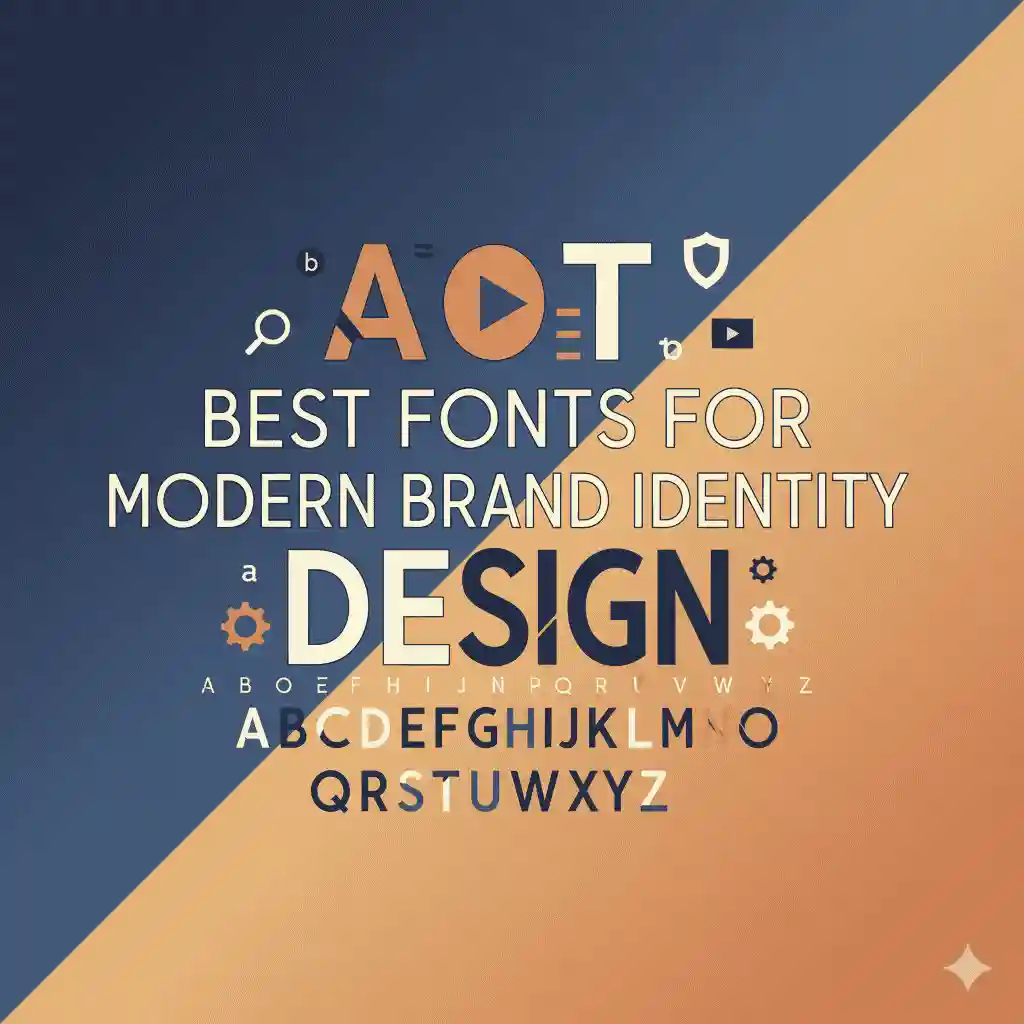
In today’s competitive digital world, brand identity is everything. A strong brand is not only about logos and colors but also about typography. The right font can make your brand look professional, modern, and trustworthy. In this article, we’ll explore the best fonts for modern brand identity design, how to choose them effectively, and some professional font recommendations you can use to strengthen your branding.
2. Why Fonts Matter in Brand Identity
Fonts are a crucial element of branding because they influence how people perceive your business. According to studies, typography can affect consumer trust and even purchasing decisions. A modern and consistent font choice helps your brand communicate professionalism and credibility.
For example, luxury brands often use elegant serif fonts, while tech companies lean towards minimal sans serif fonts to represent innovation.
3. Key Characteristics of Modern Fonts
Modern fonts for branding usually share these characteristics:
- Simplicity: Clean, minimalistic design.
- Readability: Easy to read across devices and platforms.
- Versatility: Works well in digital and print media.
- Timelessness: Avoids being too trendy, ensuring longevity.
4. Best Fonts for Modern Brand Identity Design.
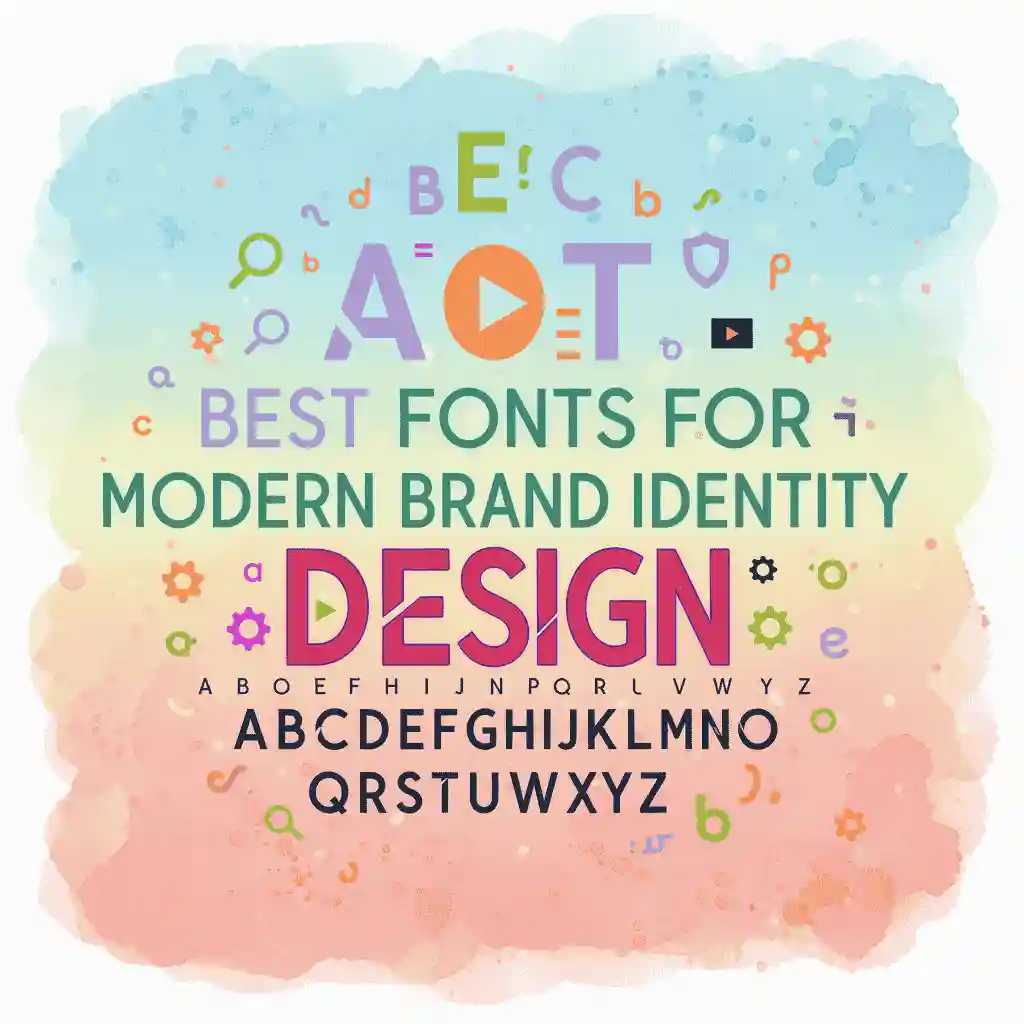
a. Serif Fonts
Serif fonts are timeless and convey professionalism and trust. They are perfect for brands that want to look established and reliable.
- Example: Hanrigton (Check it here) – A stylish brush serif that adds personality to branding.
b. Sans Serif Fonts
Sans serif fonts are the top choice for modern brands. They look clean, simple, and contemporary.
- Example: Livingston Sans (View here) – A bold and versatile sans serif font ideal for startups and tech brands.
c. Display Fonts
Display fonts are creative and impactful, best used in headlines or logos. They add uniqueness to your brand identity.
- Example: New Leaves Display Font (See it here) – A strong, eye-catching display font for standout branding.
d. Script Fonts
Script fonts bring a human touch, often associated with creativity and elegance. Great for fashion, lifestyle, or artistic brands.
- Example: Raihania Modern (Check here) – A modern calligraphy script font perfect for elegant brand identity.
5. Tips on Choosing the Right Font for Your Brand
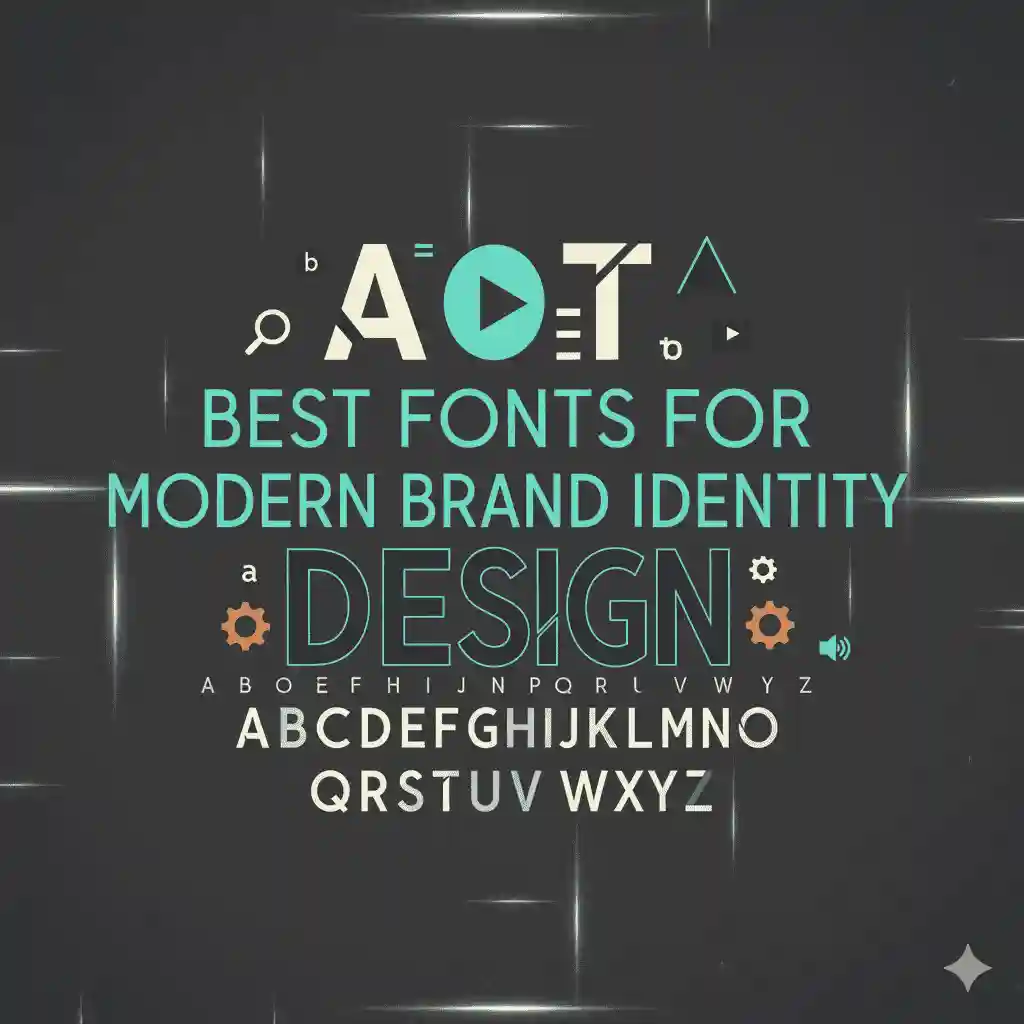
- Understand your audience – Choose a font style that resonates with your target market.
- Reflect your brand personality – Modern fonts should align with your brand’s values.
- Prioritize readability – Your font should be clear on all devices.
- Test across platforms – Ensure your font looks great on websites, social media, and print.
6. Font Pairing Strategies
Pairing fonts can enhance your brand’s personality. Here are some strategies:
- Serif + Sans Serif: Professional yet modern.
- Sans Serif + Script: Minimal with a touch of elegance.
- Display + Sans Serif: Bold and clean.
Example pairing: Use Glasgow Sans for body text and Ramesha Script for headings.
8. Conclusion
Choosing the best fonts for modern brand identity design is one of the most critical steps in building a strong, professional, and lasting brand. From serif to sans serif, script to display, fonts play a vital role in shaping how your audience perceives your business. By selecting high-quality, versatile fonts like those from Edric Studio, you can create a modern and memorable brand identity.